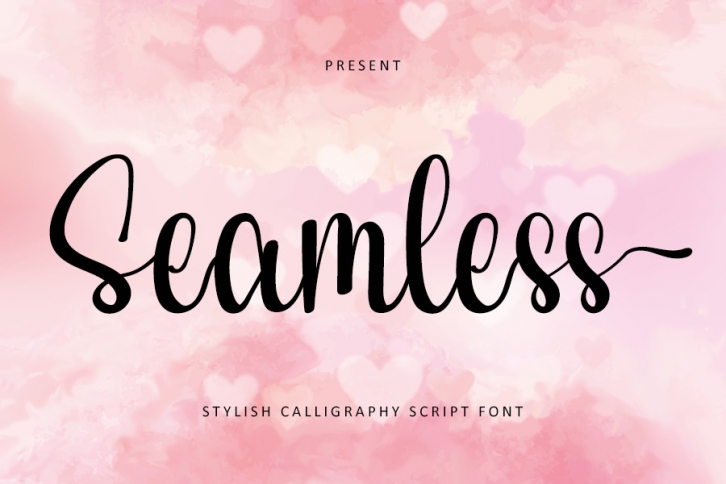
Seamless is a friendly handwritten font, carefully designed to become a true favorite. It maintains its classy calligraphic influences while feeling contemporary and fresh. This font is PUA encoded which means you can access all of the glyphs and swashes with ease.